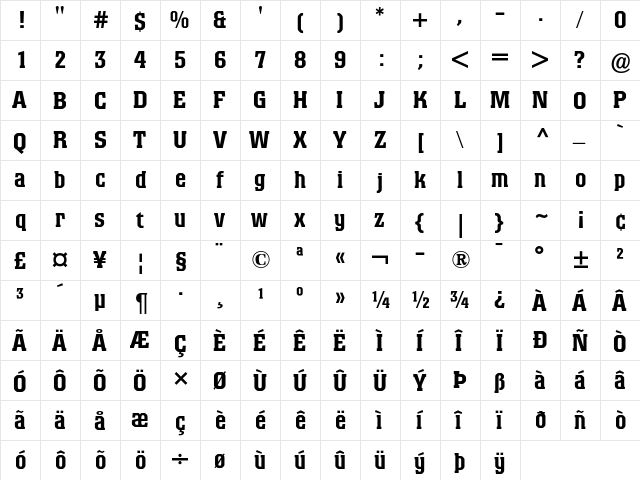
Colossalis Medium
Colossalis offers clean, dependable letterforms without strong stylistic allegiance, making it a practical choice for designers who need flexibility.